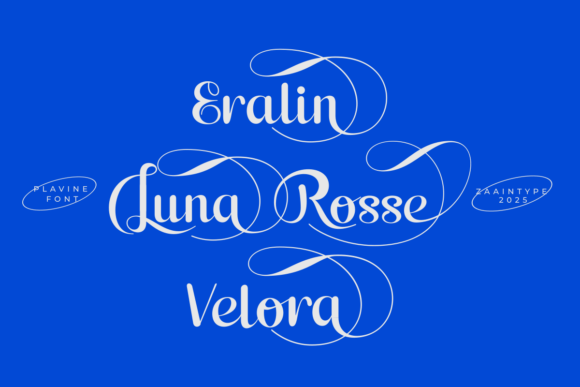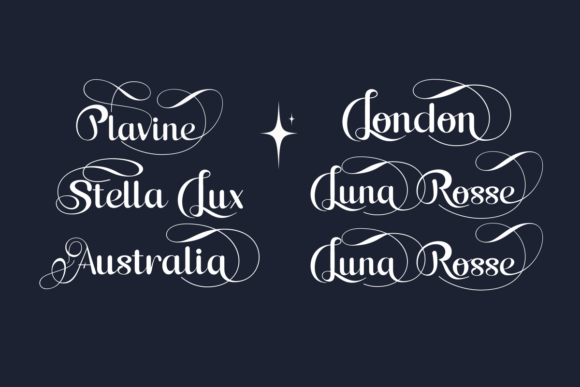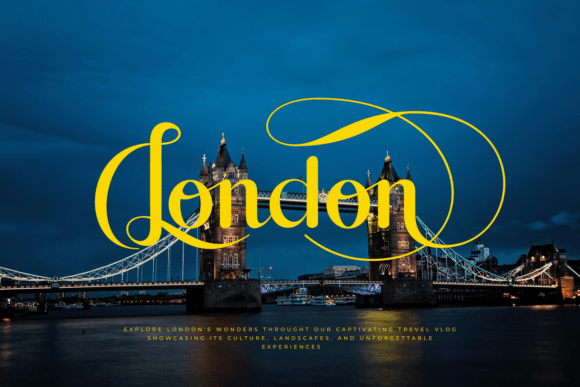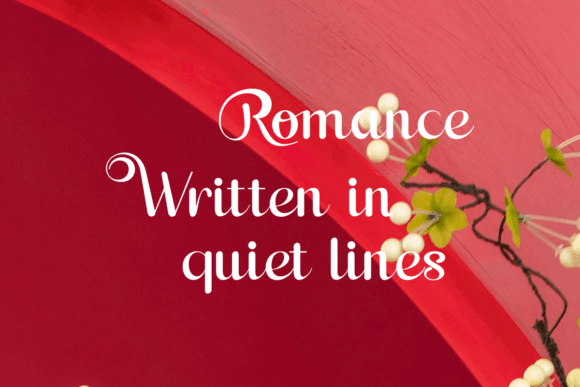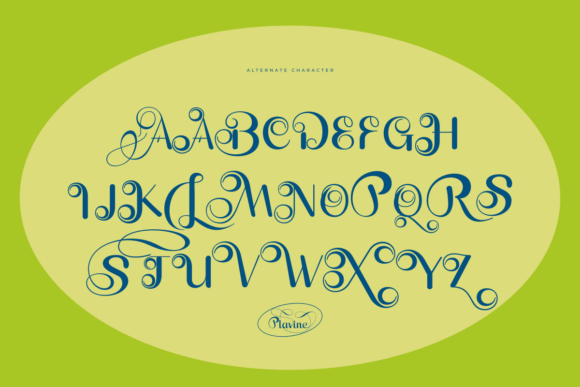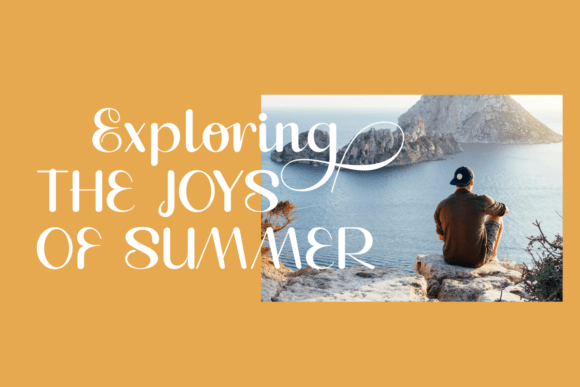
Introduction to Plavine Font
Have you ever found yourself staring at a blank canvas, unsure of where to start a new design project? The blank page can be intimidating, but the right font can be the spark that ignites your creativity. For designers seeking a sophisticated touch, Plavine Font is an elegant Latin font that perfectly balances classic forms with a modern twist.
With its clean lines and subtle contrast, Plavine Font creates a smooth yet distinctive look that’s perfect for branding, editorials, packaging, and design projects that demand a professional and high-quality feel. Whether you’re working on a creative project from scratch or need a reliable design resource, Plavine Font is an excellent choice that’s sure to elevate your work to the next level.
Key Features of Plavine Font
- High-quality design resource suitable for various creative projects, including digital art, graphics, and typography.
- Unique, hand-drawn style that adds a touch of elegance and sophistication to any creative project.
Honest Review: Plavine Font
I recently stumbled upon the Plavine Font and was immediately drawn to its unique style. As a designer, I’m always on the lookout for high-quality design resources to elevate my creative projects.
One of the standout features of the Plavine Font is its transparent background, which makes it incredibly versatile and easy to work with. This means I can seamlessly integrate it into my designs without worrying about distracting backgrounds.
Here are some of the things that work well with the Plavine Font:
However, I did encounter some limitations with the Plavine Font:
- ⚠️ Limited font styles and sizes, which can be restrictive for complex designs
Overall, I’m impressed with the Plavine Font’s unique style and versatility. While it has some limitations, it’s a great design resource for smaller creative projects or personal use. I’d definitely recommend it for designers looking for a high-quality, free download font.
Tips for Getting the Most Out of Plavine Font
To get the most out of the Plavine Font, experiment with different font sizes, colors, and styles to create a unique look for your creative project. You can also combine the font with other design elements, such as images or graphics, to create a visually appealing design.
The Plavine Font is ideal for various design projects, including business presentations, marketing materials, and creative portfolios. Its high-quality design and transparent background make it a versatile font for any creative project.